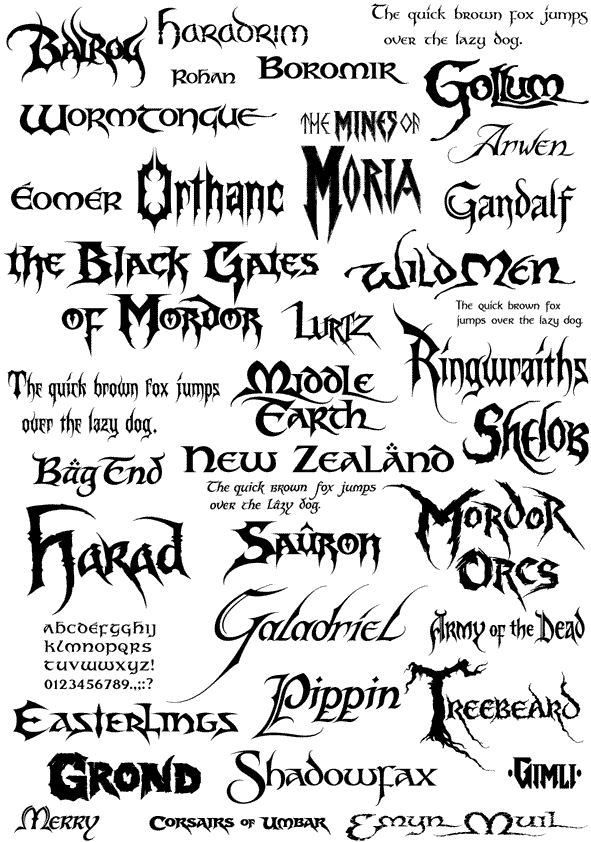
Lord Of The Rings Font Name
Lord Of The Rings Font Name. Elvish fonts from the lord of the rings. Click to find the best 14 free fonts in the lord of the rings hobbit style.
The One Ring By Gaut Fonts.
Elven common speak bilbo hand bold hobbiton brushhand morris roman party business bilbohand regular elfic caslin saratieldamarltr bar saratieldamarrtl bar saratieldamarvertical bar tengwar 03. The legend of the ring. Lord of the rings font name.
They Are Your New Precious!
One Of The Most Remarkable Typefaces For Lord Of The Rings/The Hobbit Is The Font Used For The Title Of The Films On Posters, Book Covers, Merchandizing Articles Etc.
The Lord Of The Rings Is A Fantasy Adventure Film Series Based On The Novels Of J.
Lord Of The Rings > Balrog;